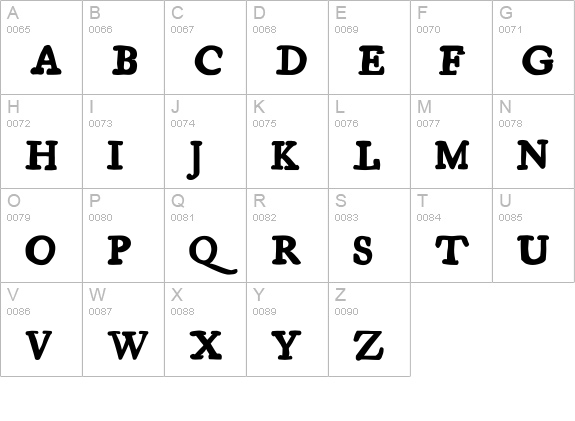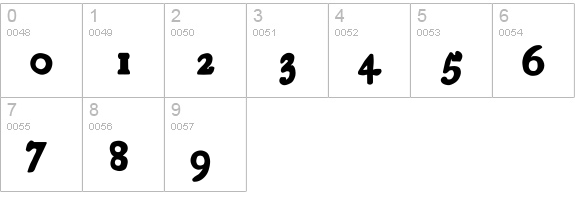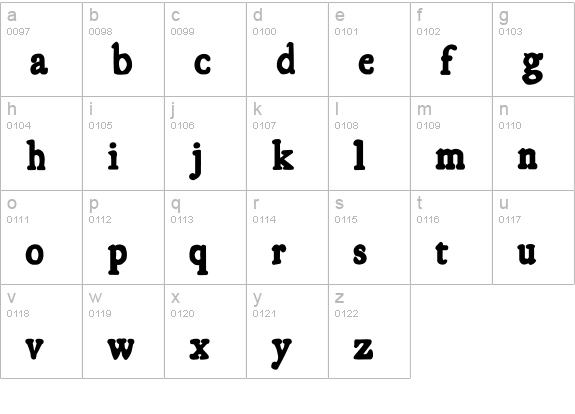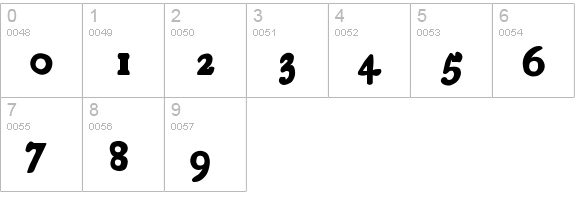
Essays 1743 Bold is a strong, high-contrast variant in the Essays typeface family \xE2\x80\x94 well suited to headlines, attention-grabbing titles, and strong calls-to-action.
Essays 1743 Bold font is a modern and versatile typeface that exudes confidence and sophistication. With its bold and impactful design, it is perfect for making a bold statement in your projects. Whether you are working on a poster, logo, or editorial design, this font will surely catch the eye of your audience. The best part? Essays 1743 Bold font is available for free download at FontsMarket.com. This means you can easily access this stunning font and use it in your projects without any cost. Don't miss out on this amazing opportunity to add a touch of elegance to your designs with Essays 1743 Bold font. Download it now and elevate your creativity to new heights!